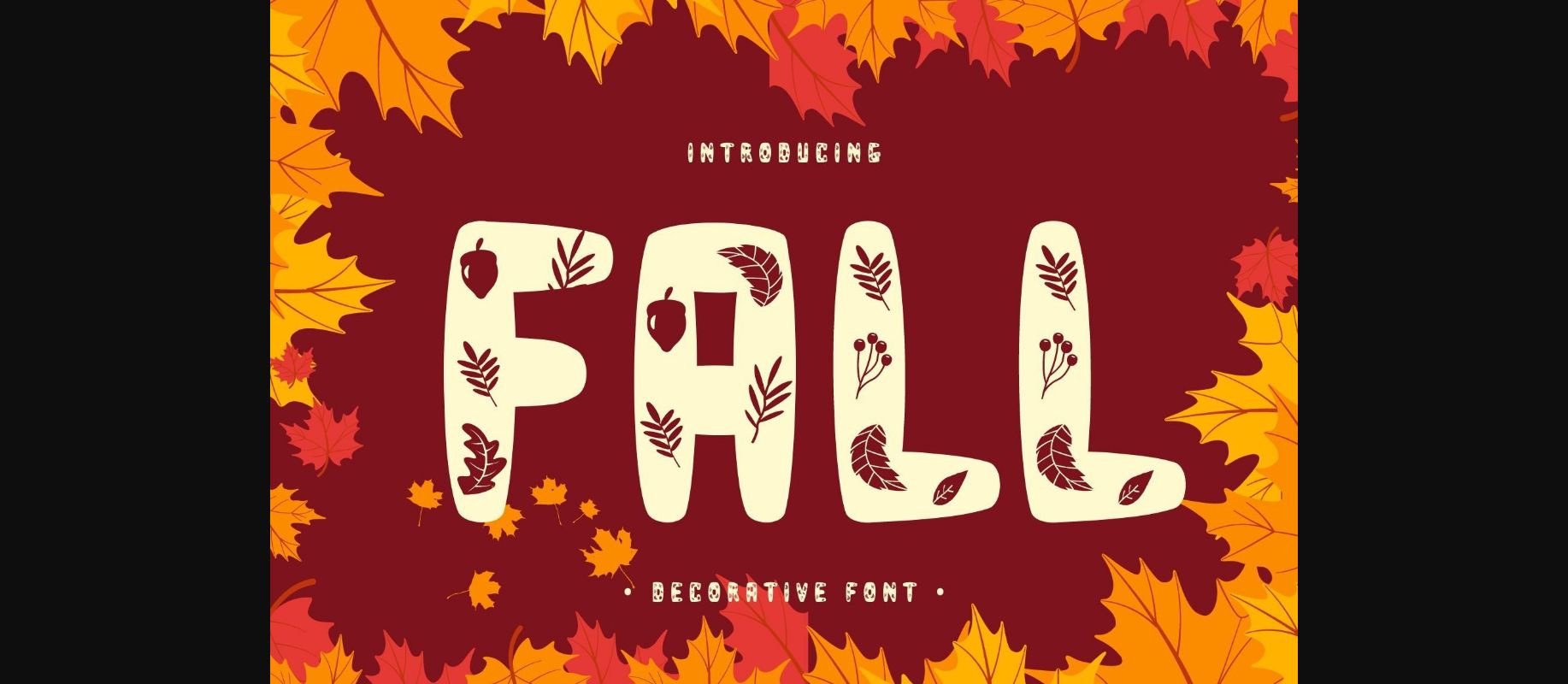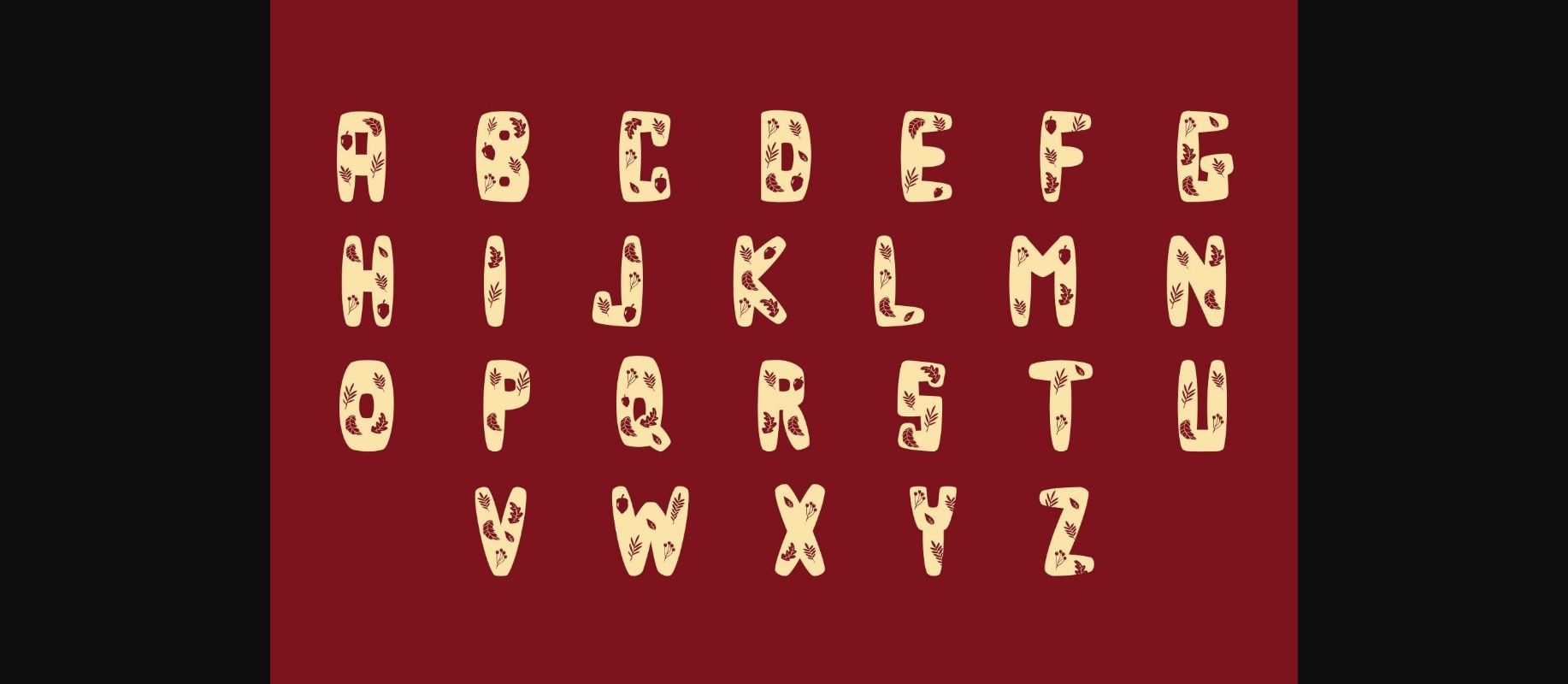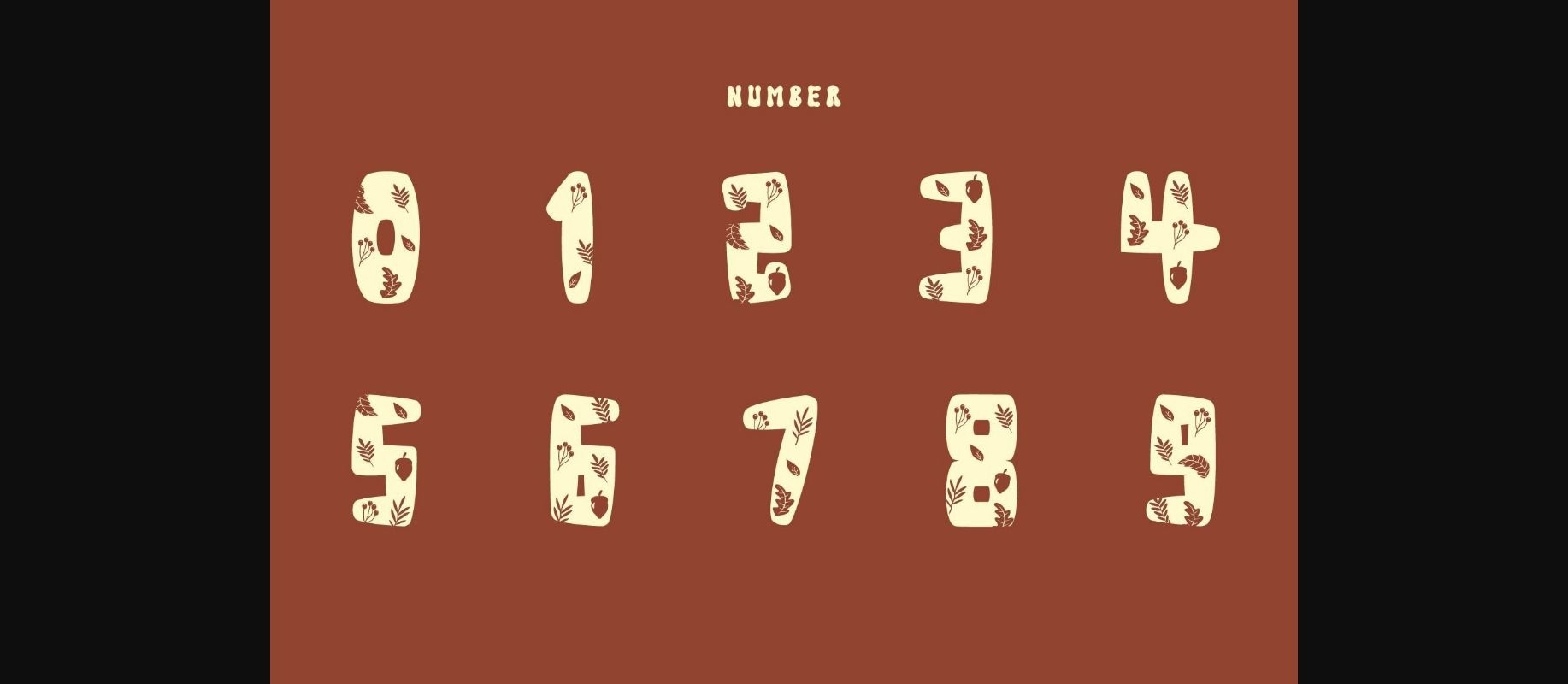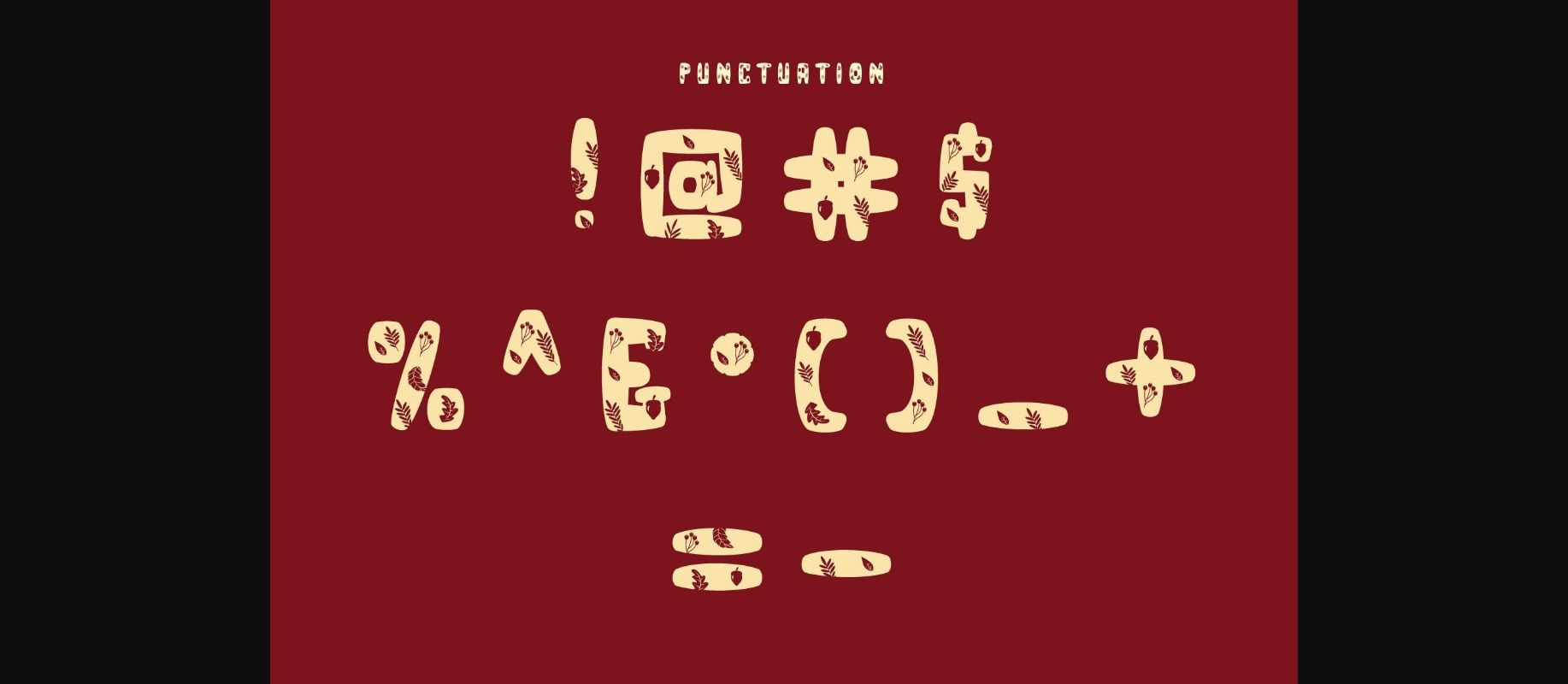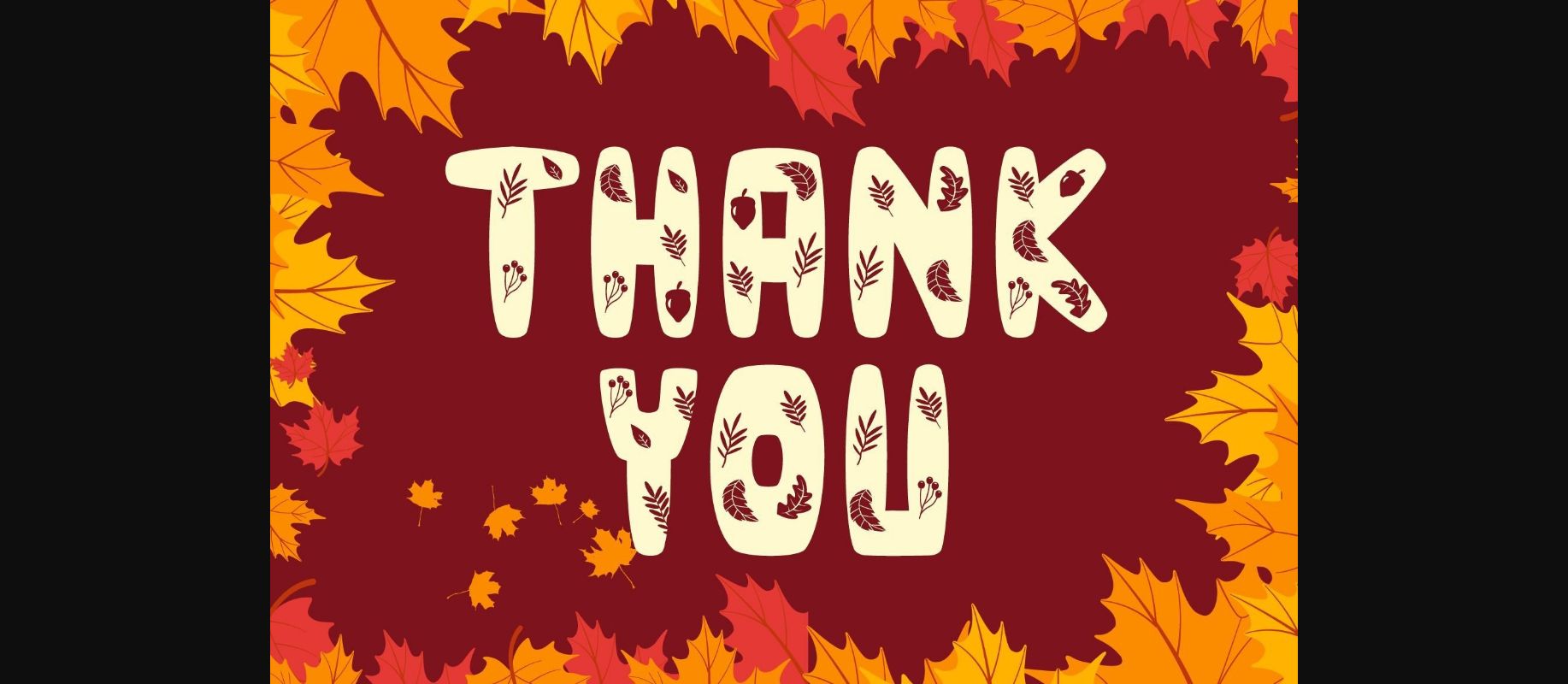
Fall Font
About Fall Font
Fall is a fun decorative font. It embodies playfulness and authenticity and is the perfect choice for all your favorite projects, or even for blog posts, logos, branding, ads, invitations, greeting cards, planners, photo albums, decorations, and much more. Add it to any of your designs, and enjoy the results!